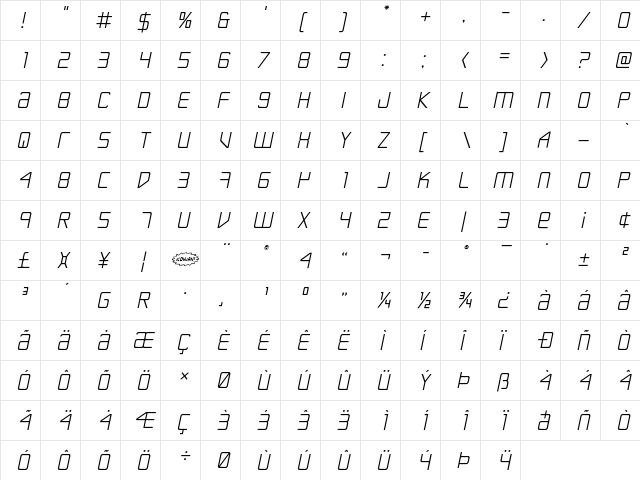
Escape Artist Ttitle Semi-Italic Semi-Italic
Design Context for Escape Artist Ttitle Semi-Italic Typeface
Escape Artist Ttitle Semi-Italic takes a measured approach to typography — its balanced proportions and neutral character make it a reliable workhorse for both digital and print work. The slanted form adds forward momentum and visual energy.